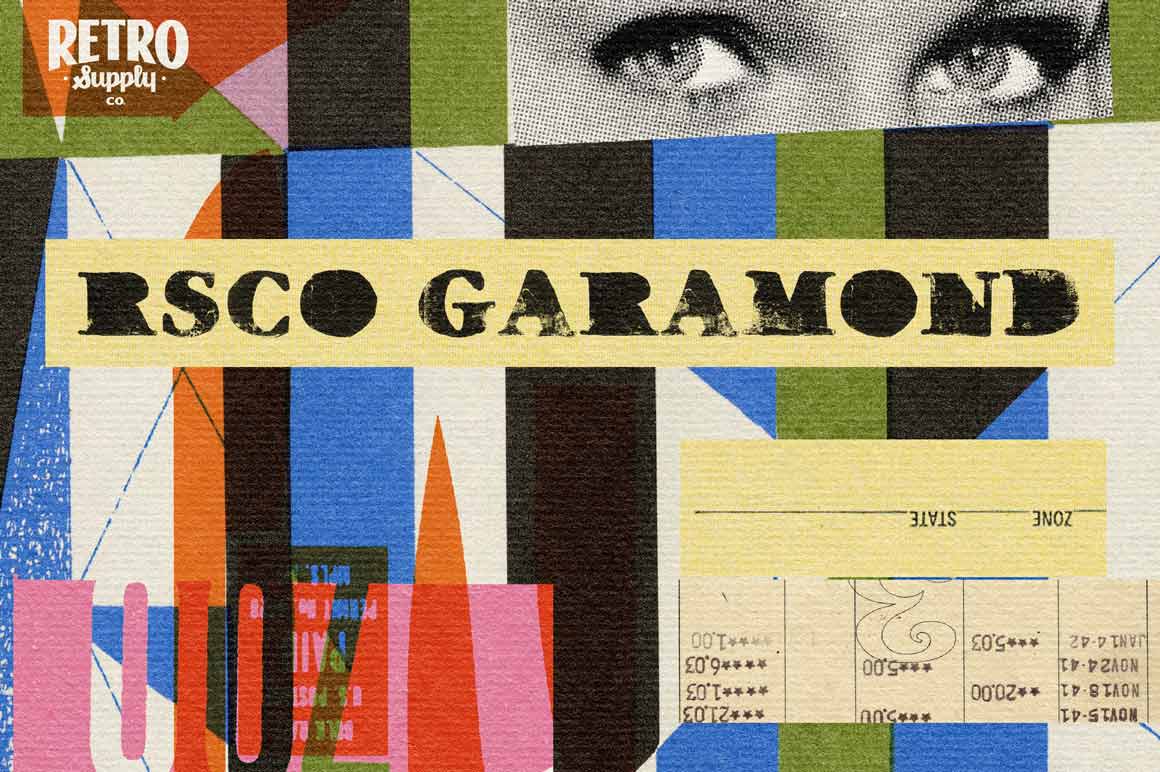
RSCO Wood Type Bundle
A collection of our 5 transparent textured fonts made from salvaged wood type letters. We created the fonts by making physical prints from the wood type letters, scanning the prints, and then digitizing.
RSCO BODONI ($19)
The classiest typeface you've ever laid eyes on! We created this tribute to Bodoni from a set of authentic wood type prints — this is your chance to own a piece of typography history.
Get ready to be amazed by the classic design and increased stroke contrast of this unique font. With an elegant, vertical axis and updated printing technologies, you'll see why some have called it one of the most beautiful typefaces around. We dare you not to swoon!
RSCO CASLON ($19)
If you're looking for type that oozes classic sophistication with a modern, witty twist, look no further than RSCO's Caslon Wood Type Font!
With this classic 18th-century font, you can easily pull off a refined feel without being too serious.
Incorporate these regal yet fun letterforms into any headline and stand out from the crowd. With its charmingly imperfect finish and warmth abound, you'll be sure to welcome readers into your copy quickly.
RSCO GARAMOND ($19)
A bold, modern twist on the classic beauty of a timeless design. Our special edition font forgoes all the stale and unexciting digital typefaces you've grown accustomed to and transports you back to the sixteenth-century Paris of Claude Garamond.
Using the original prints as a base, we've taken it up a notch and created a wood type font with blocky strokes of ink and endearing imperfections. It still retains all the sophistication that comes with its Parisian origin story, but livens it up with quirks that will set your work apart from everyone else's.
Whether you're designing posters or invitations, emails or brochures, this unique typeface will help make every project something truly special.
RSCO HAAS ($19)
We've taken classic fonts from the early 20th century at the legendary Haas Type Foundry, combined them with the beauty and imperfection of wood type prints, and created RSCO Haas!
Perfect for adding character to your headlines without sacrificing readability. A perfect mix of vintage Swiss type with modern charm. We guarantee that you won't be disappointed with RSCO Haas - so why not add a touch of bold Swiss nostalgia to your projects?
RSCO ROSEWOOD ($19)
We turn old into new – we created our Rosewood wood type font using wood type to print the actual typeface and then digitize it. Not only will this font make your designs look better than ever before, but you also get to pay homage to one of history’s greatest typographic minds.
Based on the beloved William Page wood typeface known as Clarendon Ornamented, first designed in 1859, this wood type version adds the perfect touch of tasteful finesse to each and every project.